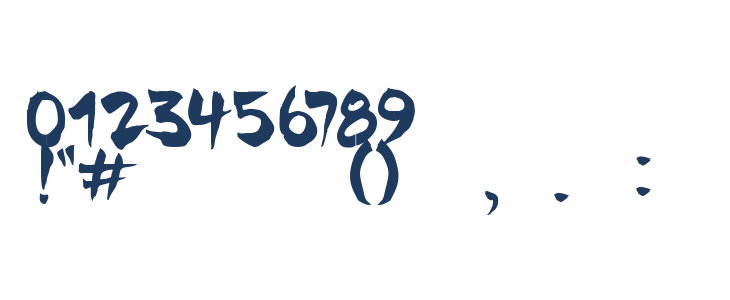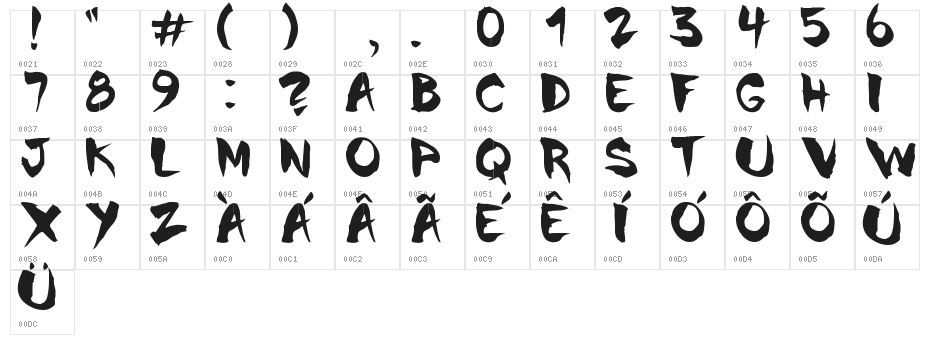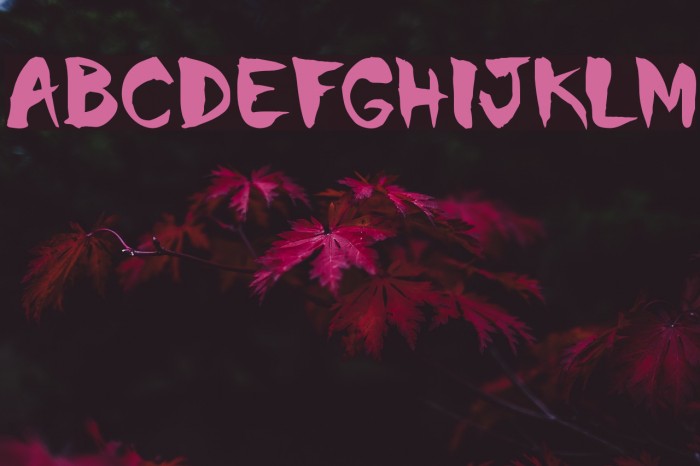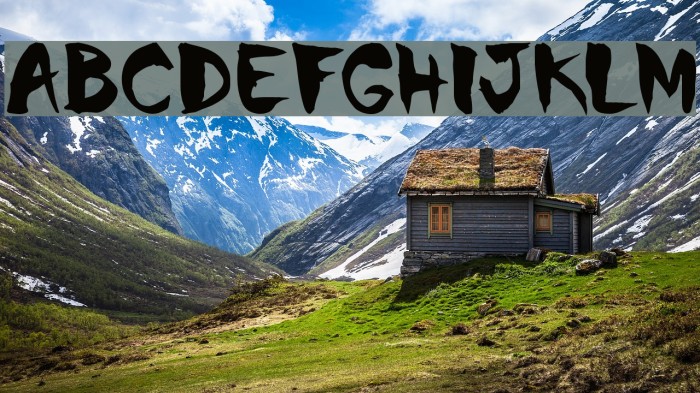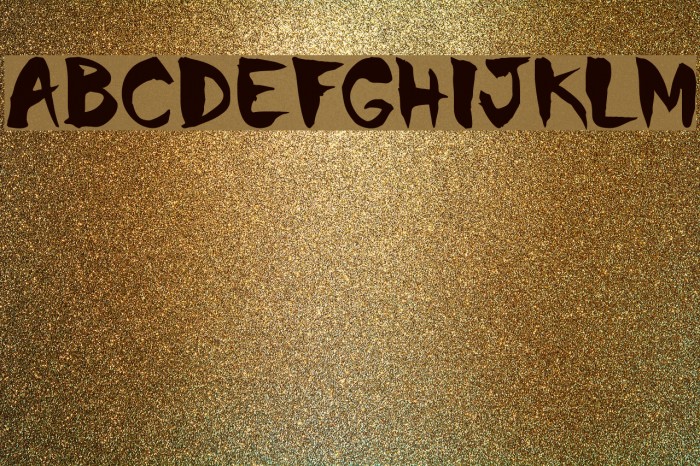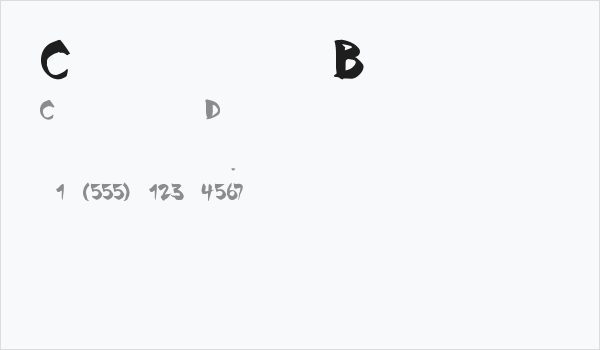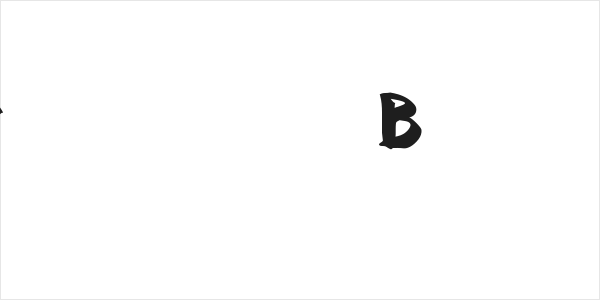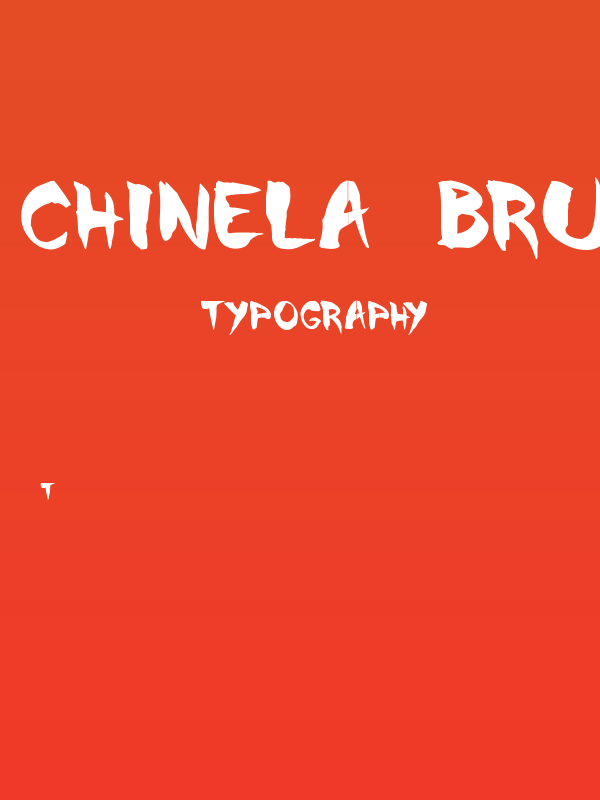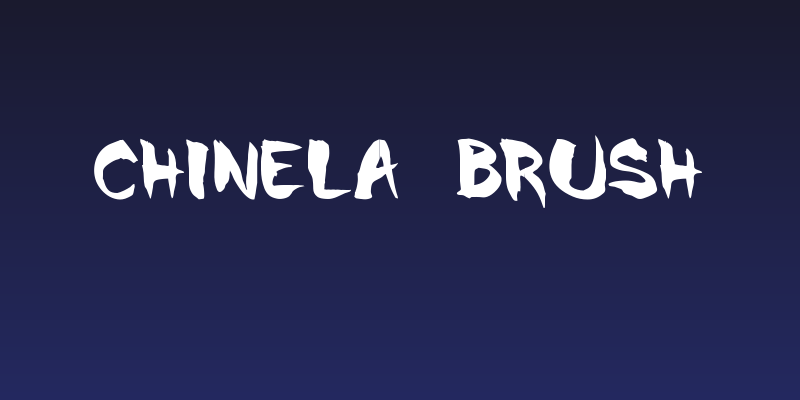
Chinela-Brush Font
Chinela-Brush Description
This font features a bold and expressive brush style, characterized by its dynamic and energetic strokes. The letters are crafted with a sense of movement, giving them a lively and artistic appearance. The uppercase letters are bold and prominent, while the numbers maintain the same energetic style, ensuring consistency across the character set. The special characters are designed to match the overall aesthetic, making them suitable for creative and informal projects. The font's unique brush strokes create a sense of spontaneity and creativity, making it ideal for designs that require a personal touch.
| Use Case | Headlines, Logos, Artistic projects |
| Proposed Projects | Ideal for posters, artistic projects, branding, and any design that requires a creative and personal touch. |